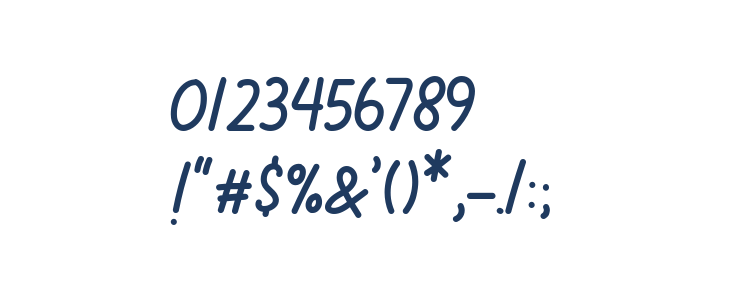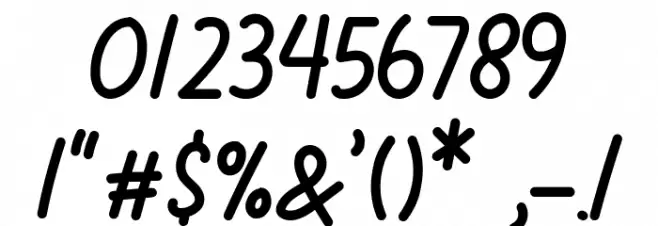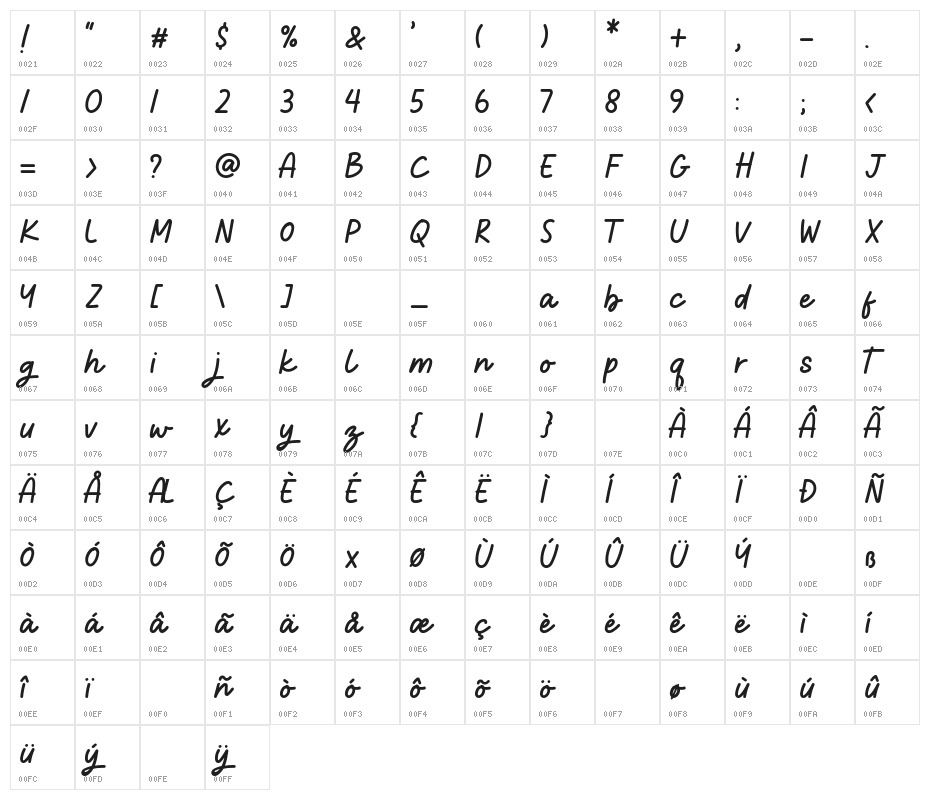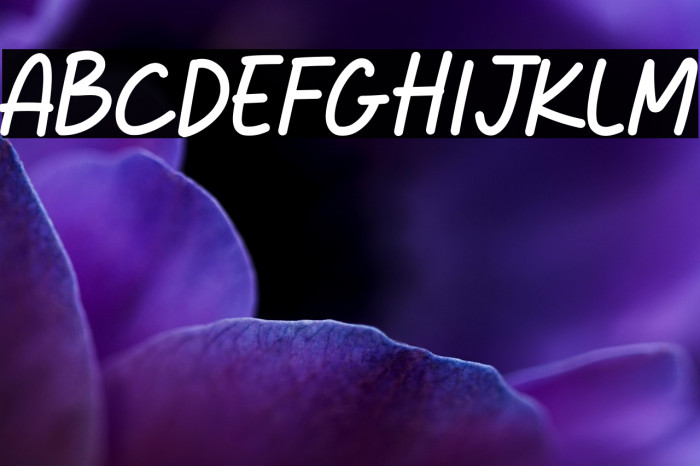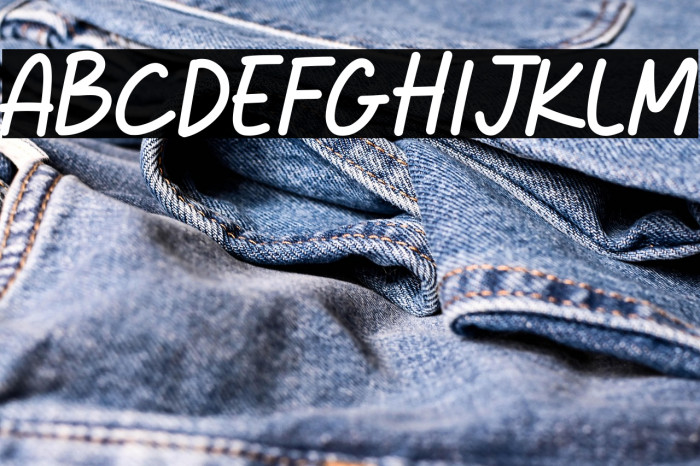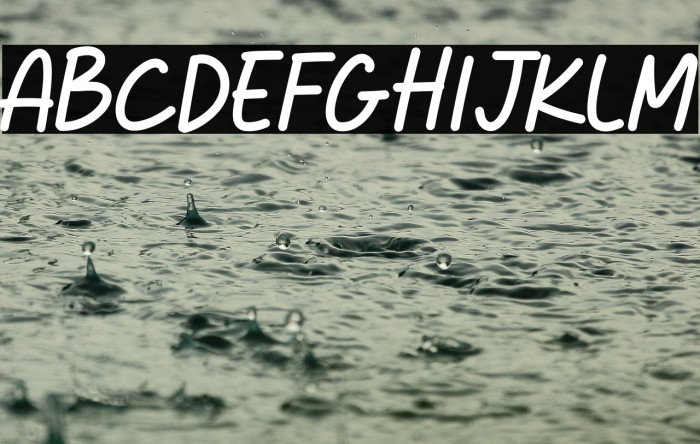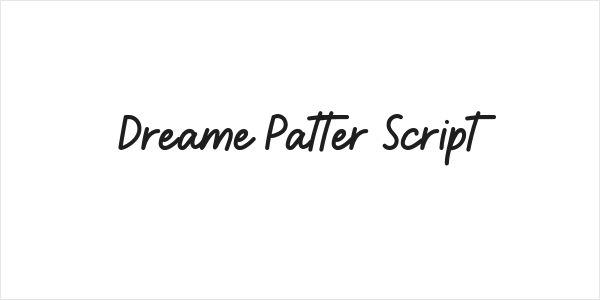
Dreame Patter Script Font
Dreame Patter Script Description
This script font exudes a playful and casual vibe, characterized by its smooth, flowing lines and slightly slanted letters. The uppercase letters are bold and confident, while the lowercase letters maintain a consistent, rounded appearance, adding to its approachable feel. The numerals are clear and legible, matching the overall style of the alphabet. Special characters are well-integrated, ensuring versatility in various design contexts. The font's handwritten style makes it ideal for projects that require a personal touch, such as invitations, greeting cards, or branding for creative businesses.
Overall StyleCasual, Playful
Use CaseInvitations, Greeting cards, Branding
Proposed ProjectsIdeal for invitations, greeting cards, branding for creative businesses, and personal projects.